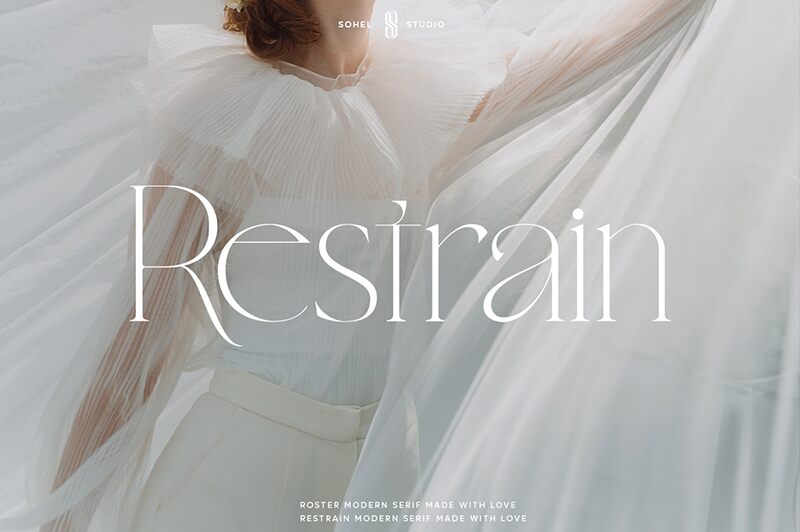
Restrain font by Sohel Studio is an elegant and sophisticated light serif font that exemplifies a modern vibe with refined details. Featuring high contrast in its precisely designed letters, it immediately creates an ambiance of luxury and professionalism.
Ideal for branding projects, logos, magazines designs, apparel products, print items, advertising posters, packaging projects for luxurious goods.
Restrain Features:
- Uppercase & Lowercase
- Alternates & Ligatures
- Numerals & Punctuation
- Accented characters